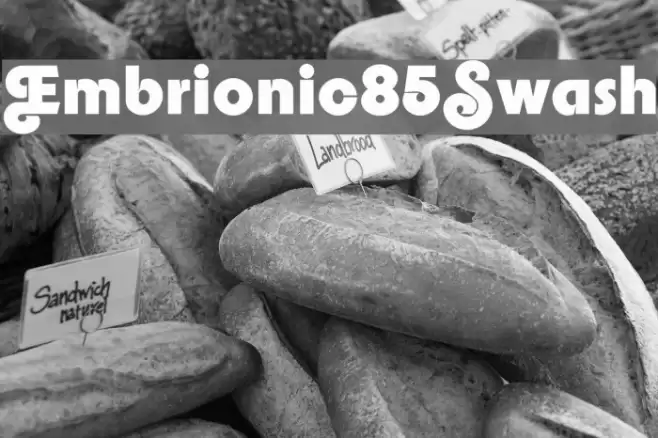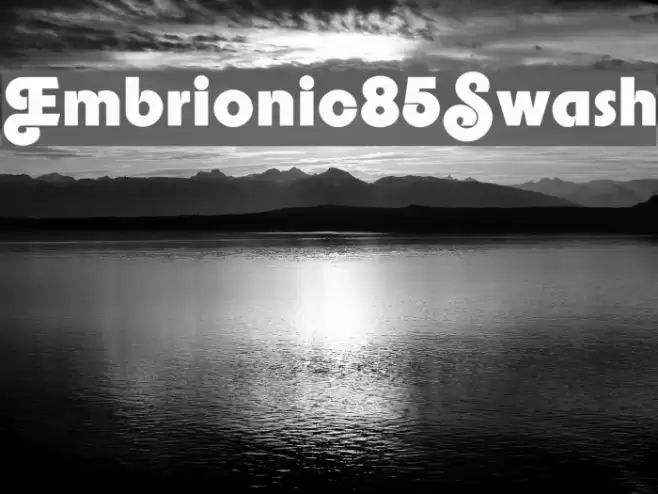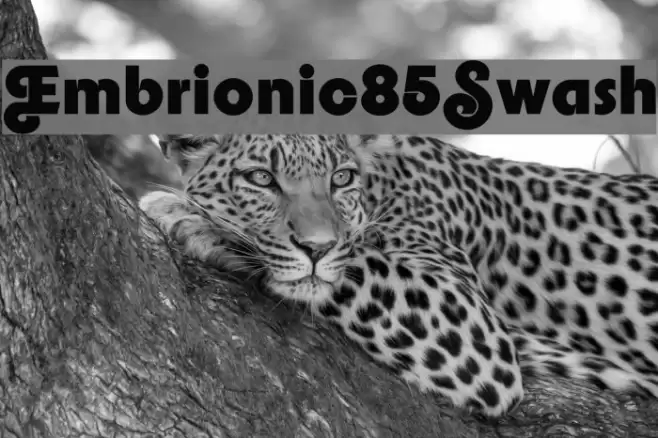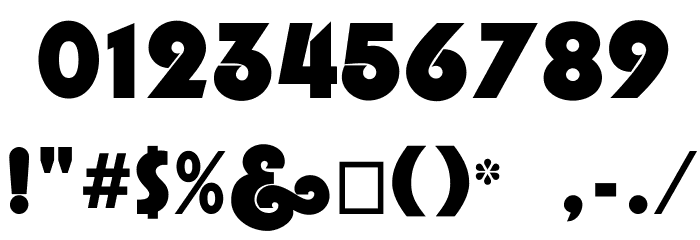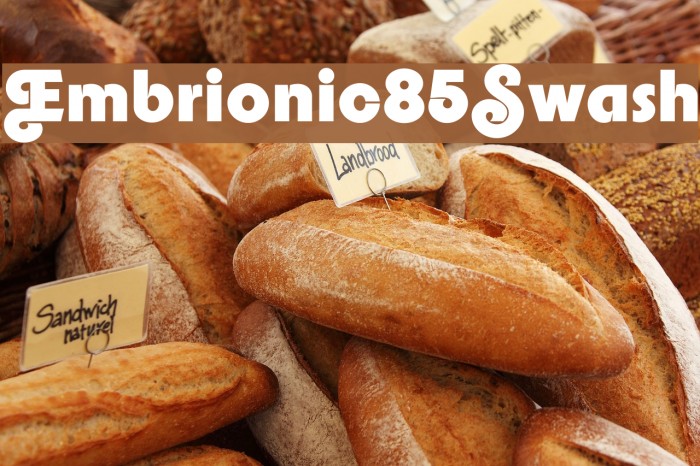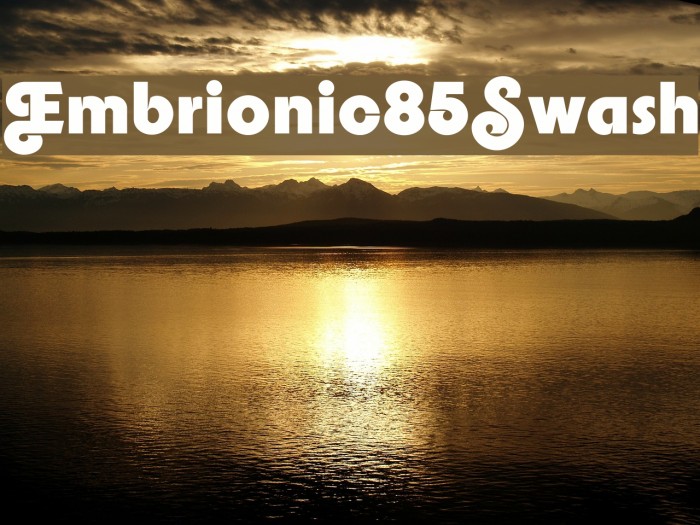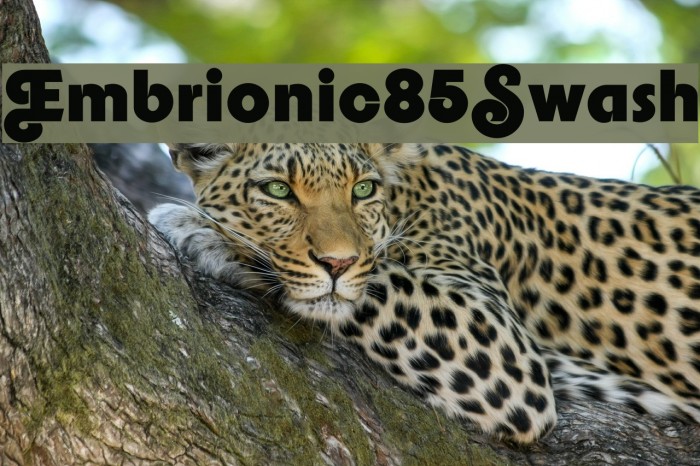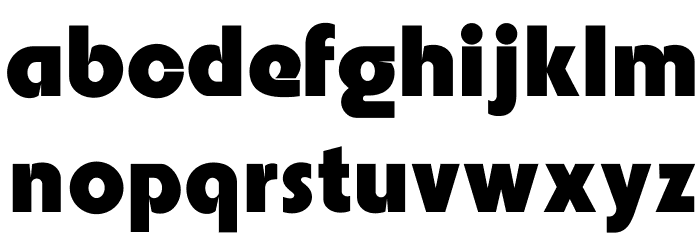
Embrionic85Swash Font
Embrionic85Swash Description
This font features a bold and playful design with swash elements that add a whimsical touch to each character. The uppercase letters are particularly distinctive, with intricate curls and loops that give them a unique flair. The lowercase letters maintain a strong presence with their thick strokes and rounded forms. The numerals are equally bold, ensuring they stand out in any context. Special characters are creatively designed, incorporating the swash style seamlessly. This font's overall appearance is both eye-catching and memorable, making it suitable for a variety of creative applications.
A bold, playful font with swash elements and distinctive character designs from Uncategorized fonts.
- Proposed Projects: Ideal for branding, poster design, children's books, and any project requiring a whimsical and bold typeface.